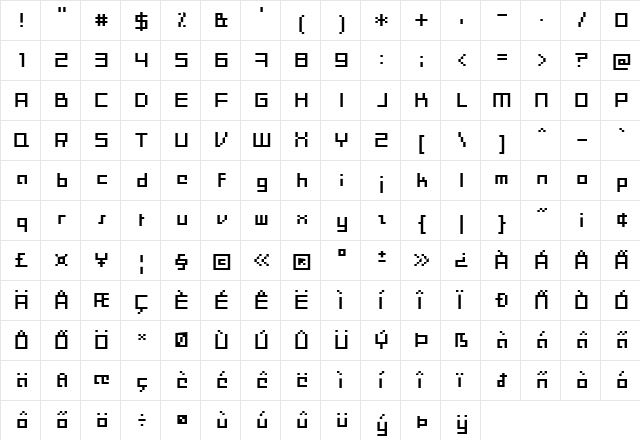
Moonracer Regular
| Designer | Andreas Nylin |
Design Context for Moonracer Typeface
Moonracer takes a measured approach to typography — its balanced proportions and neutral character make it a reliable workhorse for both digital and print work.